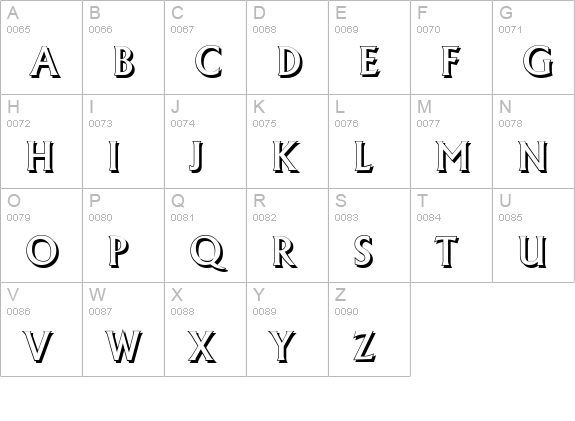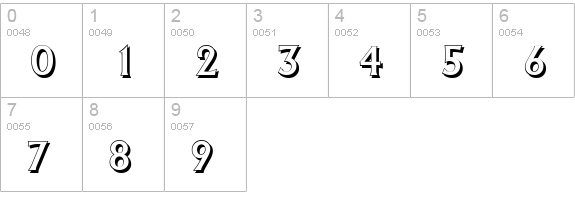
AdelonShadow-Medium-Regular is a balanced, medium-weight variant in the AdelonShadow typeface family \xE2\x80\x94 well suited to sub-headlines, navigation, and balanced editorial work.
AdelonShadow-Medium-Regular font is a stylish and versatile typeface that adds a touch of elegance to any design project. With its sleek lines and sophisticated shadow effects, this font is perfect for creating eye-catching headlines, logos, and branding materials. The medium weight strikes the perfect balance between boldness and readability, making it ideal for both print and digital applications. What sets AdelonShadow-Medium-Regular font apart is that it is completely free to download at FontsMarket.com. This means you can confidently use this high-quality font in your projects without any additional cost. Whether you're a graphic designer, marketer, or hobbyist, this font is a valuable addition to your font library. Download AdelonShadow-Medium-Regular today and elevate your designs with this premium typeface.